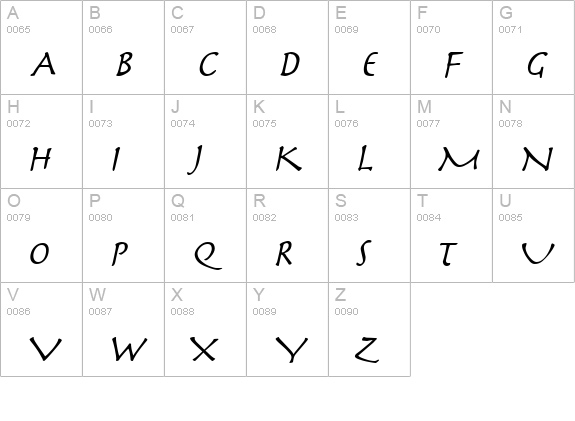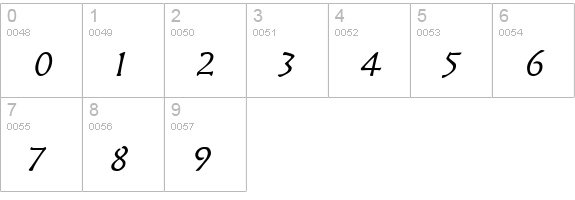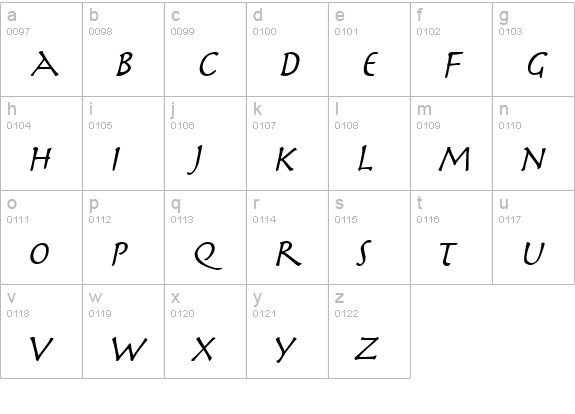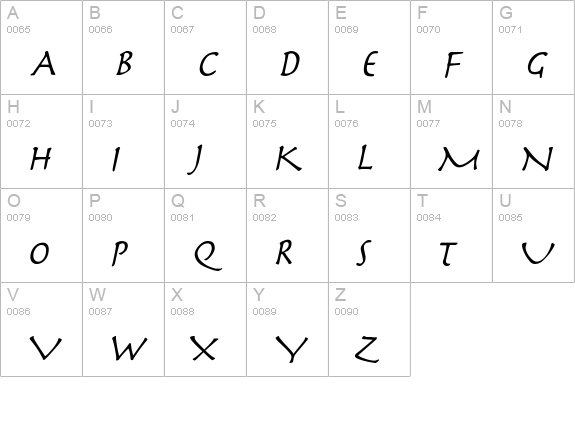
Mythology Italic is a distinctive, italic variant in the Mythology typeface family \xE2\x80\x94 well suited to design and typography projects.
Introducing Mythology Italic font, a captivating typeface inspired by ancient myths and legends. With its elegant slanted design, this font exudes a sense of mystery and enchantment, making it perfect for adding a touch of magic to your projects. The Mythology Italic font boasts flowing curves and intricate details that evoke a sense of wonder and awe. But the best part? Mythology Italic font is completely free to download at FontsMarket.com! Now you can easily incorporate this mystical font into your designs without any cost. Whether you're working on a fantasy novel, a mythical branding project, or simply want to add a touch of whimsy to your creations, Mythology Italic font is the perfect choice. Download it today and unleash the power of ancient myths in your designs.